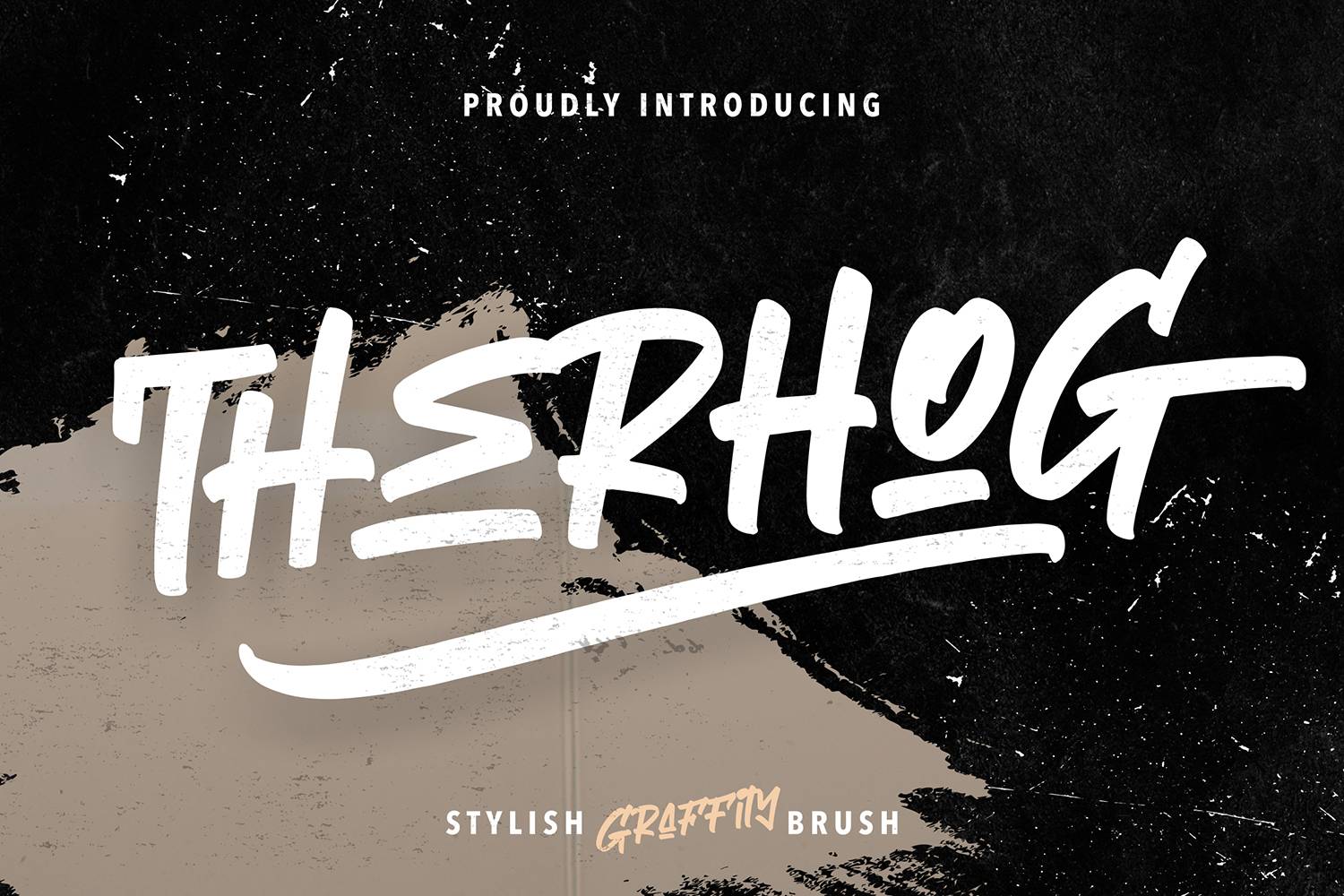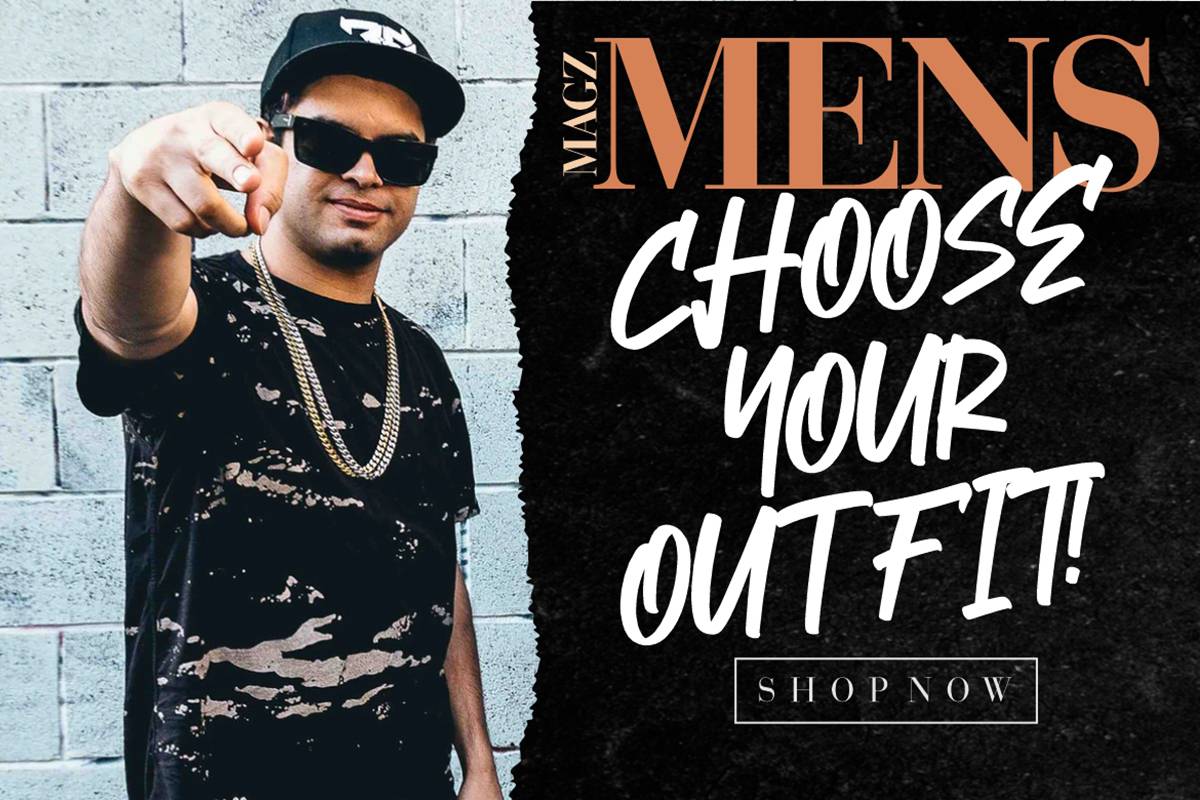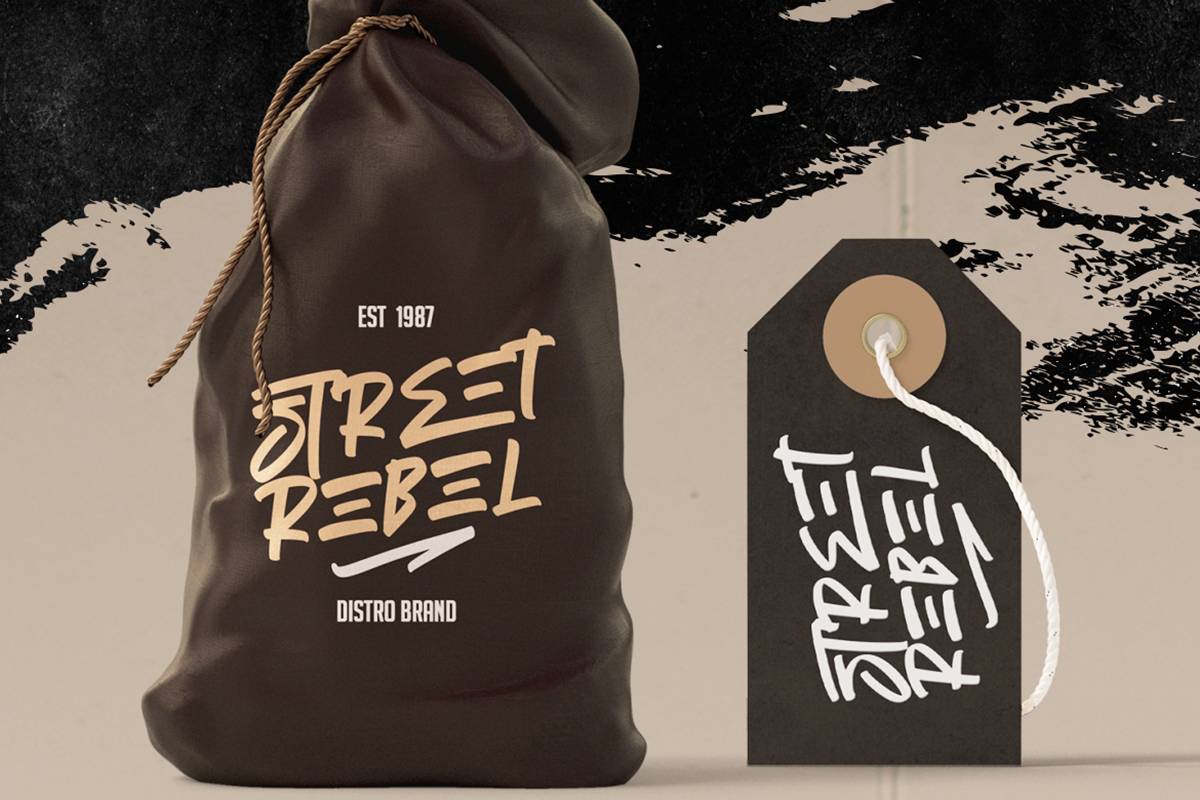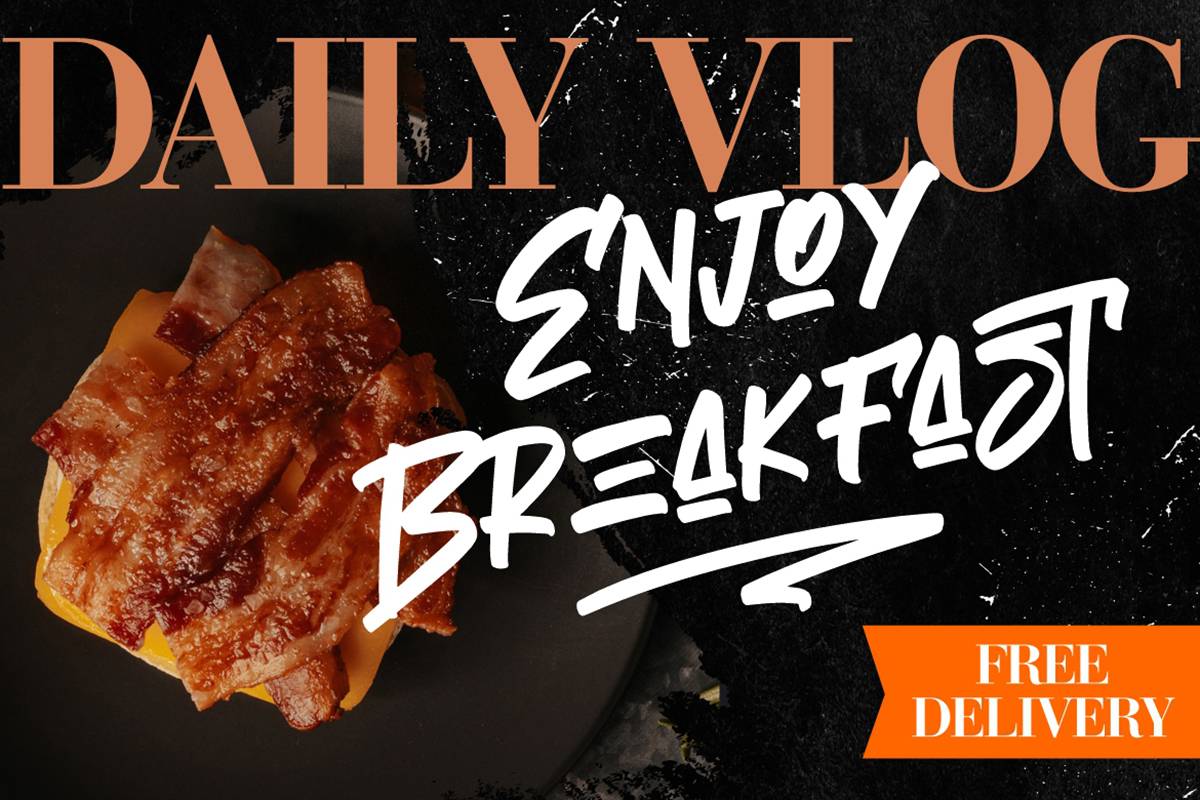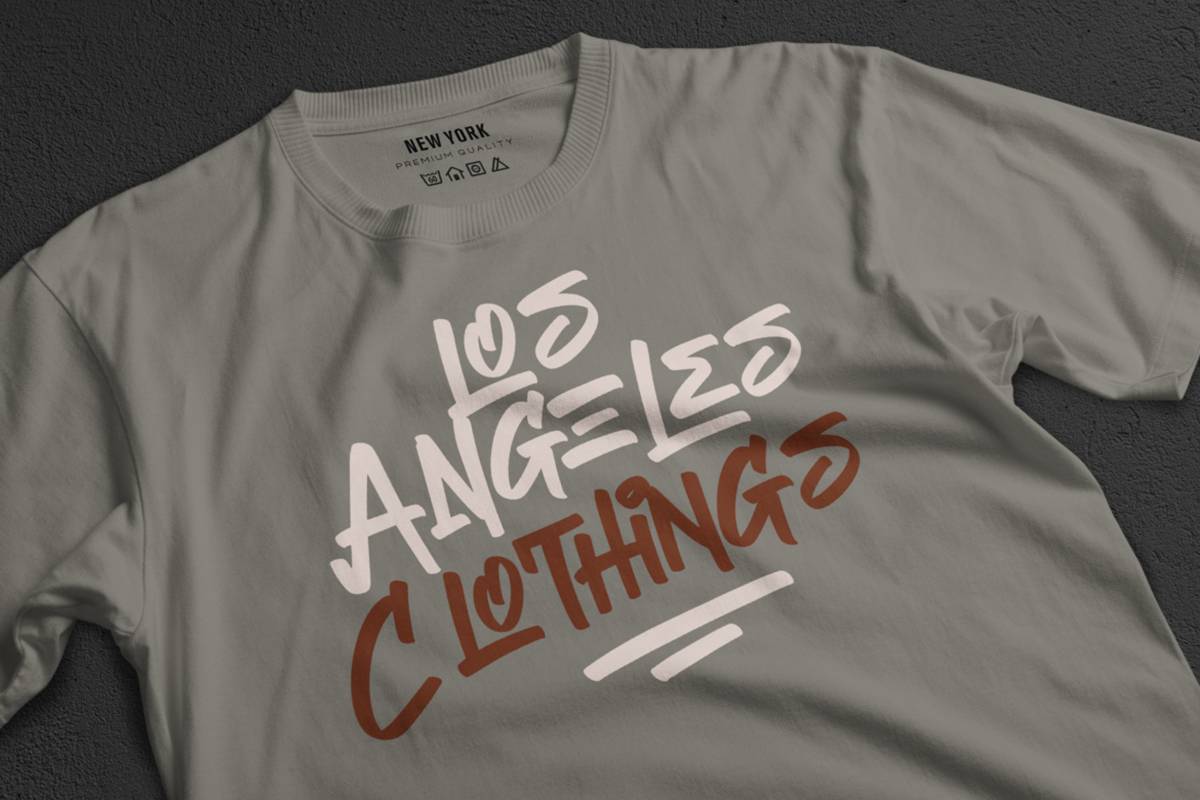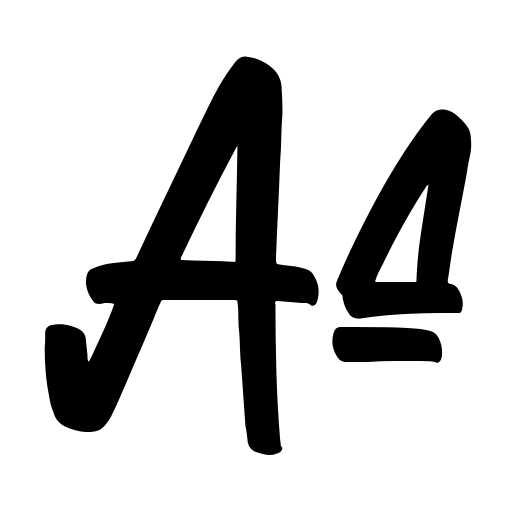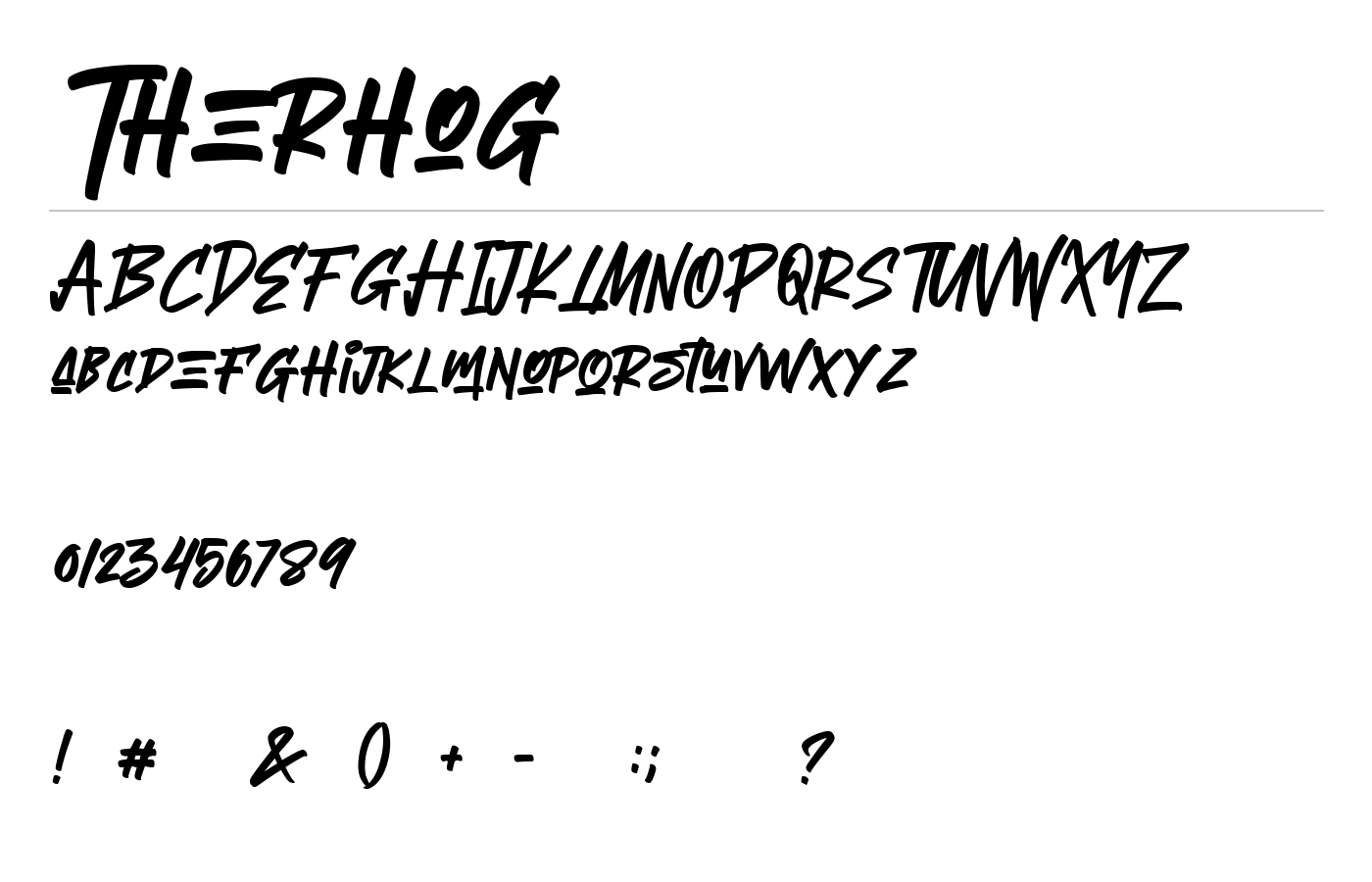
Therhog is a bold, energetic script font with a handwritten feel, featuring dynamic strokes and a slightly condensed width that gives it a lively, casual style. Its playful letterforms and strong personality make it ideal for creative branding, posters, and headlines where an informal yet impactful look is desired. This font works well to convey a sense of spontaneity and approachability in modern, youthful designs.
Therhog Font
About Therhog Font
| Font family | Therhog Font |